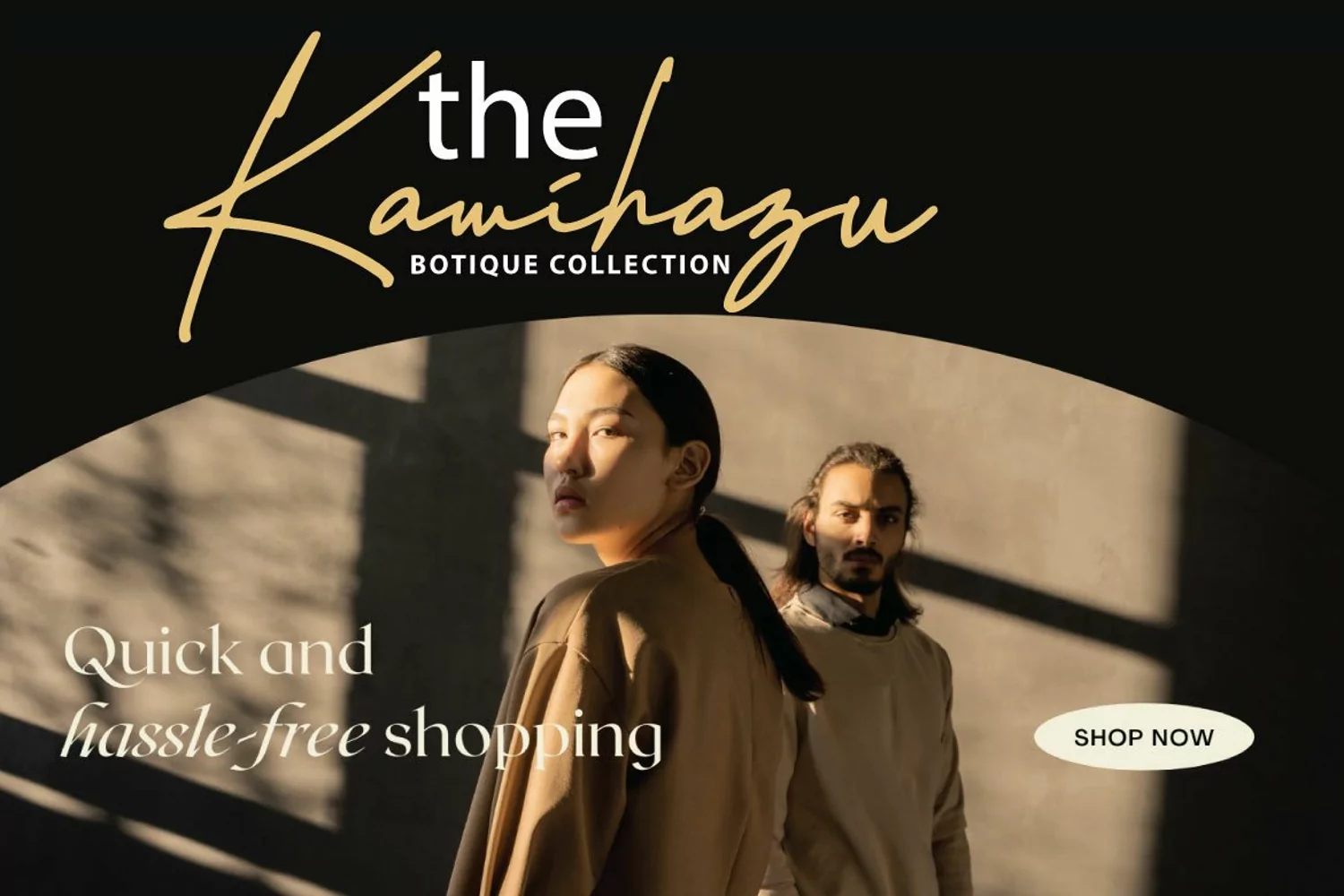
Introducing Portier-Signature; Original & organic hand drawn script fonts, Portier-Signature is perfect for handwritten quotes, signature styled logos, stylish branding projects and handcrafted stationery & product designs.